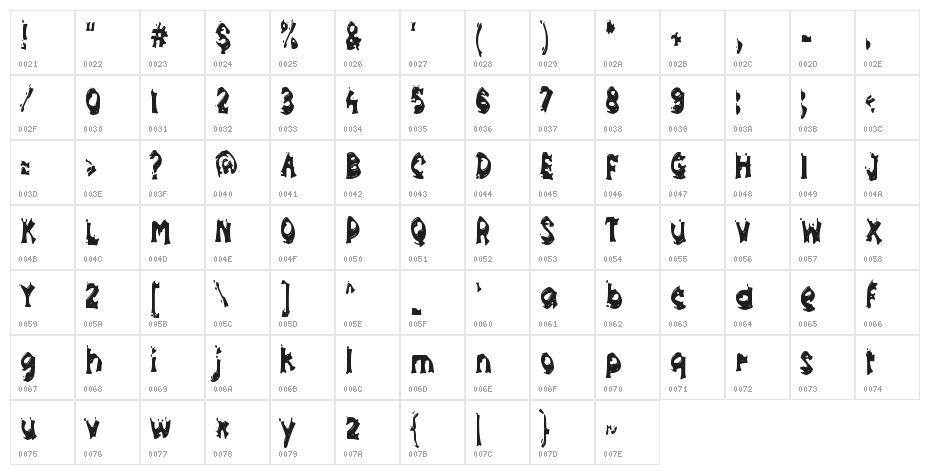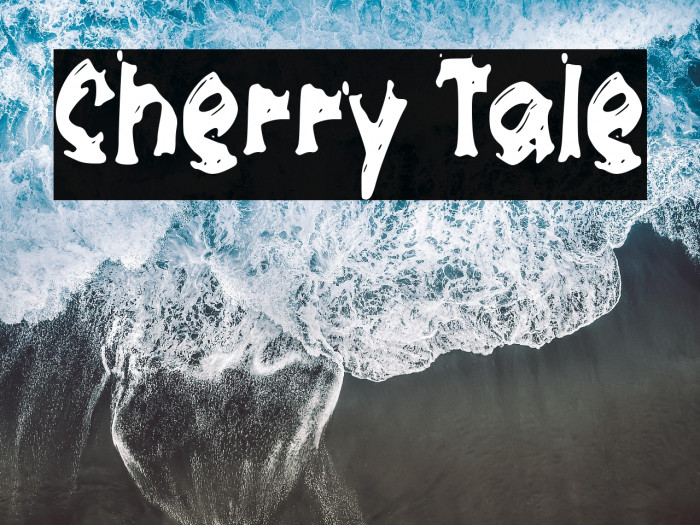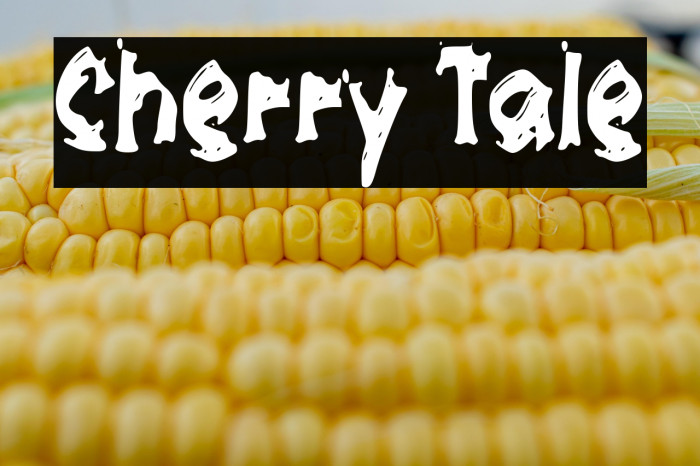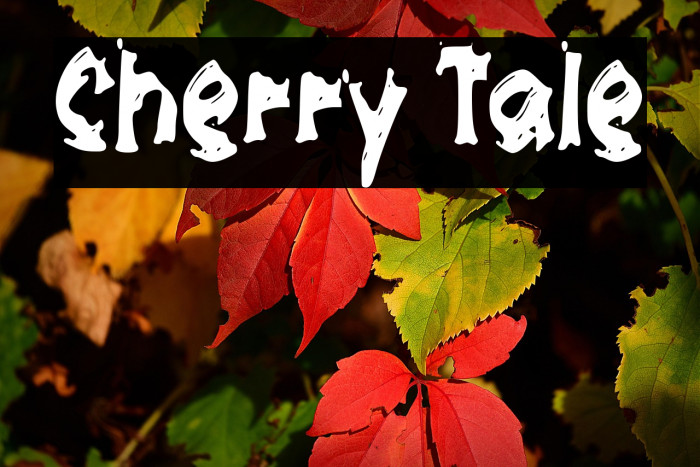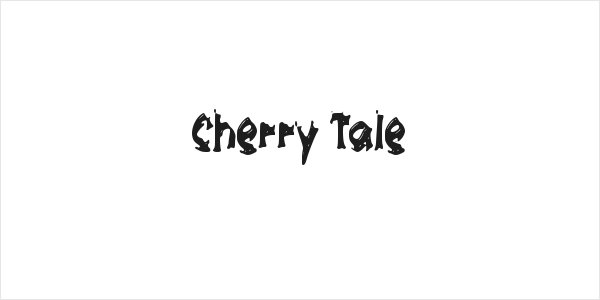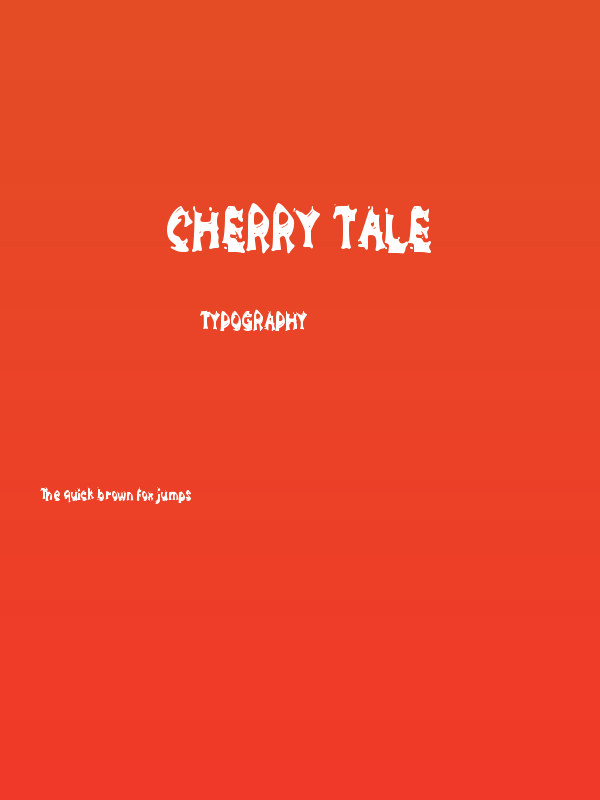
Cherry Tale Font
This font exhibits a playful and whimsical style, characterized by its bold and irregular shapes. Each character appears as if it is dripping or melting, giving it a unique and dynamic appearance. The letters are thick and have a hand-drawn quality, with uneven edges and varying stroke widths that add to its quirky charm. The font maintains a consistent height across both uppercase and lowercase letters, while the numbers and special characters follow the same playful design. This font is ideal for projects that require a fun and eye-catching aesthetic.
| Proposed Projects | Perfect for children's book covers, playful posters, Halloween-themed designs, and creative branding projects. |